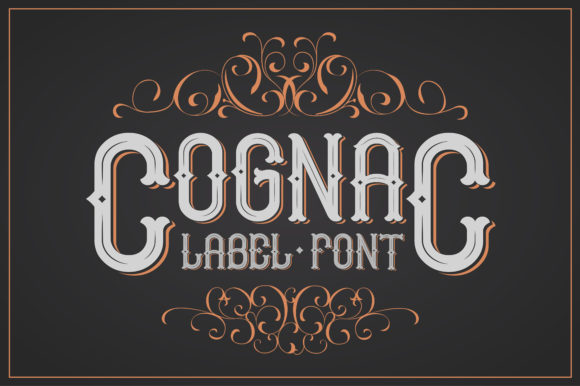
Cognac Font: A Vintage Styled, Bold Display Font for Creative Projects
Cognac is a stunning, vintage-styled, bold display font that has gained popularity among designers, crafters, and digital artists. Its unique and elegant design makes it perfect for a wide range of creative projects, from crafting and digital designing to presentations and greeting cards making. In this article, we’ll explore the features and benefits of Cognac Font and how it can elevate your designs to the next level.
What is Cognac Font?
Cognac Font is a carefully crafted, bold display font that exudes a sense of luxury, sophistication, and elegance. Its vintage design is reminiscent of classic typography, making it an excellent choice for projects that require a touch of nostalgia and refinement. The font features bold lines, intricate details, and a distinctive character that sets it apart from other fonts.
Key Features of Cognac Font
- Bold and Elegant Design: Cognac Font boasts a bold and elegant design that commands attention and makes a statement.
- Vintage Style: The font’s vintage style is perfect for projects that require a touch of nostalgia and classic charm.
- Highly Versatile: Cognac Font is highly versatile and can be used for a wide range of creative projects, from crafting and digital designing to presentations and greeting cards making.
- Easy to Read: Despite its bold design, Cognac Font is easy to read, making it perfect for headlines, titles, and short paragraphs.
Benefits of Using Cognac Font
Cognac Font offers several benefits that make it an excellent choice for designers, crafters, and digital artists. Some of the benefits include:
- Enhances Visual Appeal: Cognac Font’s bold and elegant design enhances the visual appeal of any project, making it more engaging and attention-grabbing.
- Adds Sophistication: The font’s vintage style and luxurious feel add sophistication to any project, making it perfect for high-end brands and designs.
- Increases Readability: Cognac Font’s clear and easy-to-read design increases readability, making it perfect for headlines, titles, and short paragraphs.
- Versatile and Adaptable: The font’s versatility and adaptability make it suitable for a wide range of creative projects, from digital designing to crafting and presentations.
Cognac Font is a stunning, vintage-styled, bold display font that is perfect for creative projects. Its unique and elegant design makes it highly versatile and adaptable, suitable for a wide range of applications. By incorporating Cognac Font into your designs, you can add a touch of sophistication, luxury, and elegance, making your projects more engaging and attention-grabbing.